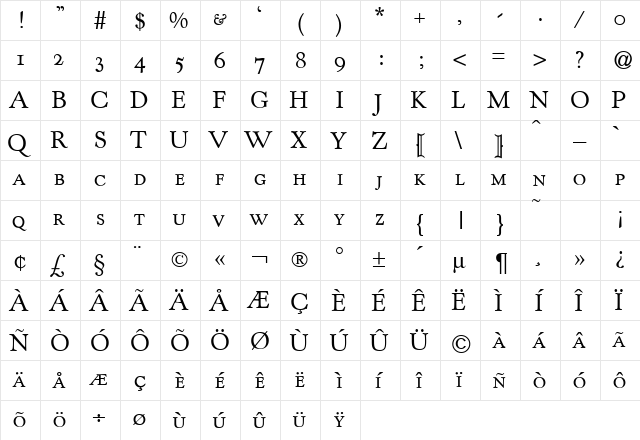
KennedyCapsDB Normal Font Preview
KennedyCapsDB Normal
Design Context for KennedyCapsDB Typeface
KennedyCapsDB takes a measured approach to typography — its balanced proportions and neutral character make it a reliable workhorse for both digital and print work.